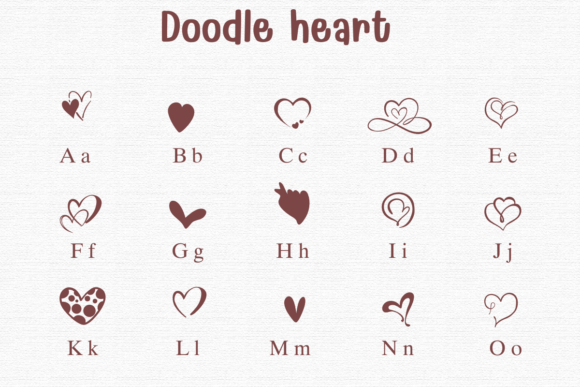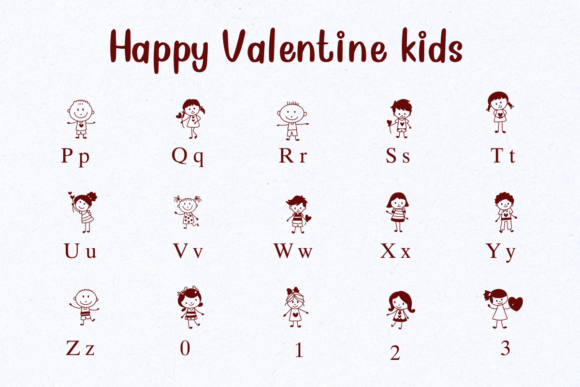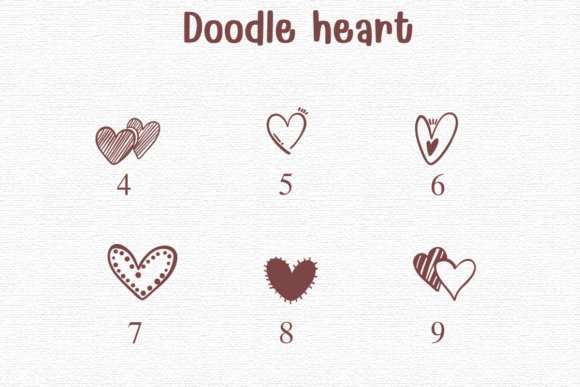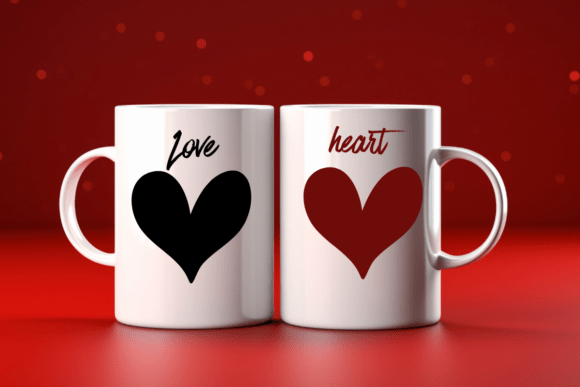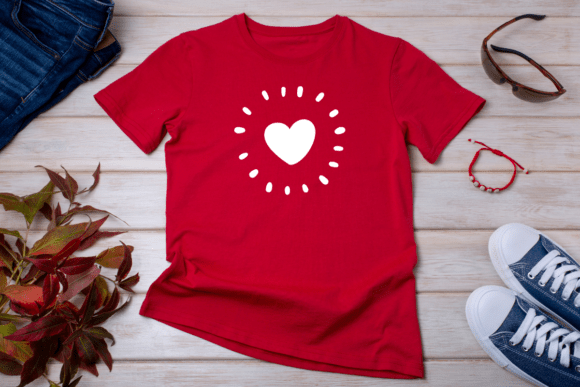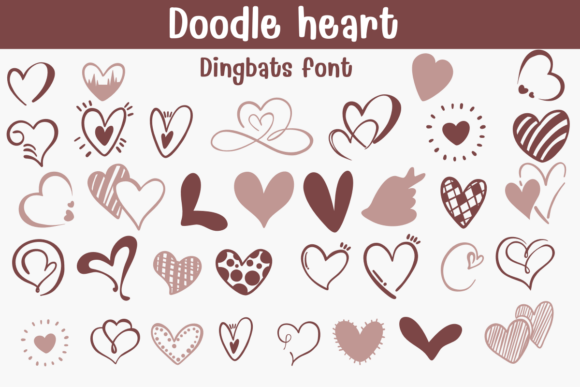
Doodle Heart Font: Whimsical Romance and Hand-Drawn Love
Are you looking for a unique and creative way to add a touch of authentic, hand-crafted affection to your projects? Look no further than the Doodle Heart font, a one-of-a-kind dingbats typeface filled with creative heart illustrations. This beautiful font is perfect for designers, crafters, and anyone looking to add a romantic touch to their work.
What is the Doodle Heart Font?
The Doodle Heart font is a curated collection of “Heart of Love” symbols, ranging from simple sketches and infinity loops to patterned icons and decorative flourishes. This unique typeface allows you to “type” beautiful vector-style illustrations as easily as letters, making it a dream tool for a variety of projects. Whether you’re creating greeting cards, wedding stationery, or personalized gift branding, the Doodle Heart font is the perfect choice.
The Versatility of Doodle Heart Font
One of the best things about the Doodle Heart font is its versatility. With a wide variety of styles to choose from, ranging from minimalist outlines to intricate, dot-work hearts, you’re sure to find the perfect illustration for your project. Use the Doodle Heart font to create custom patterns for gift wrap, add a playful touch to social media quote cards, or decorate a boutique logo with a sense of “hand-drawn” warmth.
Perfect Pairings with Doodle Heart Font
The Doodle Heart font pairs perfectly with script and handwritten fonts, acting as the perfect complement to add a touch of whimsy and romance to your work. Imagine combining the Doodle Heart font with a beautiful script font to create stunning wedding invitations or greeting cards. The possibilities are endless!
Ideas for Using Doodle Heart Font
So, how can you use the Doodle Heart font in your projects? Here are a few ideas to get you started:
- Create custom greeting cards for Valentine’s Day, anniversaries, or weddings
- Design personalized gift wrapping paper with a unique and playful touch
- Add a romantic touch to social media quote cards or graphics
- Use the Doodle Heart font to create beautiful wedding stationery, including invitations and place cards
- Decorate a boutique logo with a sense of “hand-drawn” warmth and personality
Why Choose the Doodle Heart Font?
So, why choose the Doodle Heart font for your projects? Here are just a few reasons:
- Unique and creative illustrations that add a touch of authentic, hand-crafted affection
- Versatile and easy to use, with a wide variety of styles to choose from
- Perfect for a range of projects, from greeting cards to wedding stationery and personalized gift branding
- Pairs perfectly with script and handwritten fonts
Key Features of Doodle Heart Font
- Unique dingbats typeface filled with creative heart illustrations
- Curated collection of “Heart of Love” symbols
- Wide variety of styles, ranging from minimalist outlines to intricate, dot-work hearts
- Perfect for greeting cards, wedding stationery, and personalized gift branding
- Pairs perfectly with script and handwritten fonts
Specification of Doodle Heart Font
- Font Type: Dingbats Typeface
- Characters: 100+ Heart Illustrations
- Style: Various, including minimalist outlines and intricate, dot-work hearts